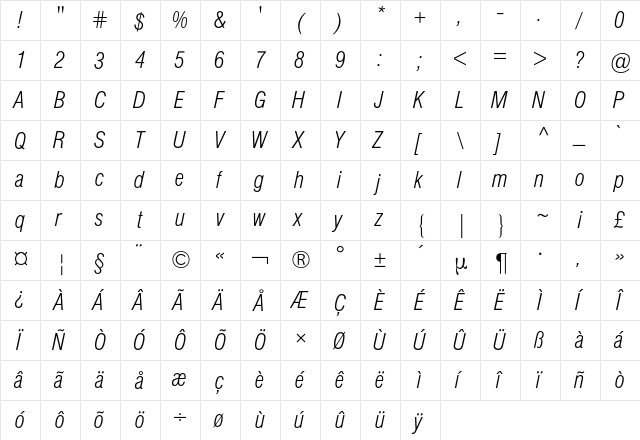
Helvetica Condensed BQ Regular Font Preview
Helvetica Condensed BQ Regular
Design Context for Helvetica Condensed BQ Typeface
Helvetica Condensed BQ takes a measured approach to typography — its balanced proportions and neutral character make it a reliable workhorse for both digital and print work. The condensed width makes it efficient for tight spaces without sacrificing legibility.